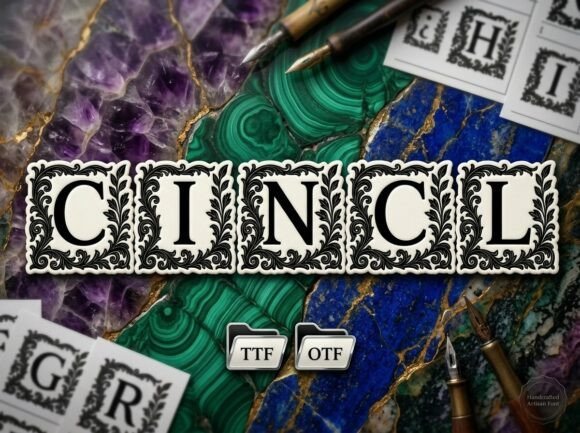
Unlock Your Creative Potential with Cincl Font
Introducing Cincl Font, a stunning decorative display font designed to be the center of attention. This font is perfect for creators who want to break away from the ordinary and make a lasting impression. With its unique artistic elements and strong visual personality, Cincl Font is versatile enough for bold headlines, artistic logos, and creative packaging, while maintaining a professional and polished finish.
As a designer, you know how valuable a great font can be. Cincl Font is no exception. Its all-caps design makes it perfect for high-impact headlines, logos, and decorative initials where every letter is a work of art. Whether you’re working on a new project or looking to elevate your brand, Cincl Font is the perfect addition to your design arsenal.
- Unique Characteristics: Cincl Font features a unique blend of modern and vintage elements, with intricate details and subtle textures that add depth and visual interest to any design.
- Font Styles: The font family includes a range of styles, from light to bold, with a total of 6 weights, allowing designers to choose the perfect style to suit their project’s tone and atmosphere.
Cincl Font Review
As a designer, I was excited to dive into the Cincl Font and see what it has to offer. Here’s my honest review:
- Unique and modern aesthetic: Cincl Font has a distinctive look that sets it apart from more traditional fonts.
- Good for digital use: The font is optimized for screens, making it perfect for websites, apps, and social media.
- Large character set: Cincl Font comes with a wide range of characters, including ligatures and alternates.
- Limited font sizes: The font doesn’t come with a wide range of font sizes, which may limit its use in certain contexts.
- May not be suitable for print: While Cincl Font is great for digital use, it may not be the best choice for print materials due to its modern design.
- Some characters may not be ideal: A few characters, such as the ampersand, may not be as visually appealing as others.
Overall, I think Cincl Font is a solid choice for digital designers. Its unique aesthetic and optimized design make it perfect for websites and apps. However, it may not be the best choice for print materials or projects that require a more traditional font.
The Cincl Font is a versatile font that can be used for a variety of design projects. Some common use cases include:
- Logo design
- Branding materials
- Web design
- Print materials
When using the Cincl Font, be sure to adjust the font size and style to suit the needs of your project. You can also pair the font with other fonts to create a unique and visually appealing design.